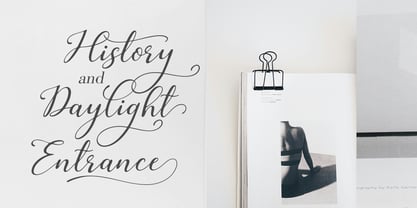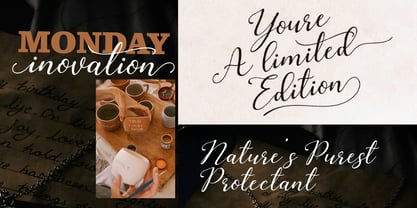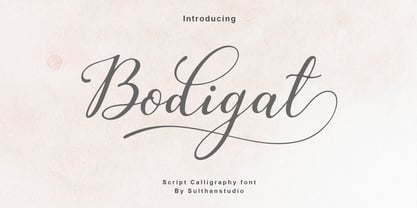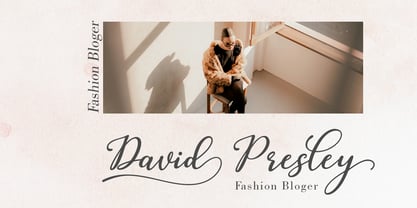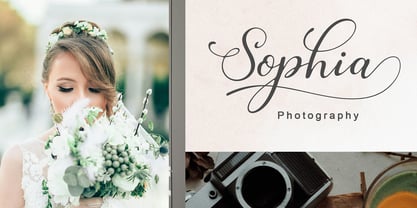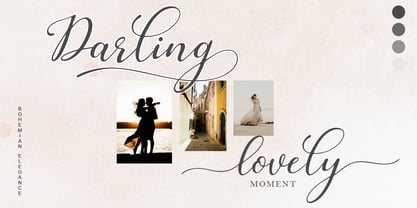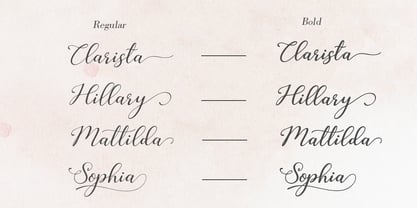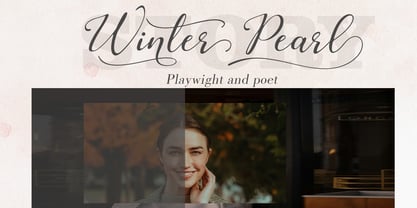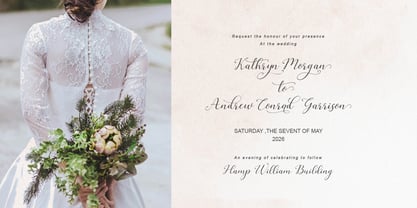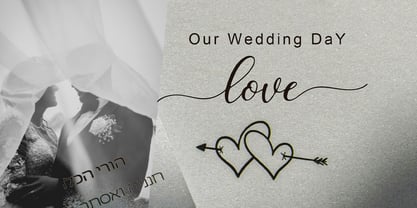
Bodigat
by Sulthan Studio
The Bodigat Font Family was designed by Nasrullah and published by Sulthan Studio. Bodigat contains 2 styles and family package options.
Introduce a touch of dazzling elegance into your designs with Bodigat, a modern script font. Exuding sophistication through graceful curves and handcrafted details, Bodigat is the secret ingredient in creating stunning wedding invitations, prominent branding, captivating logos, stylish packaging, and captivating media content. Designed to captivate, Bodigat enhances the appeal of any project it takes part in.